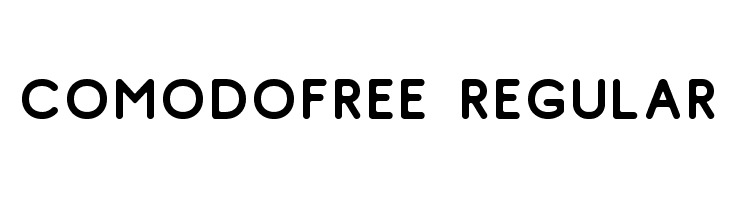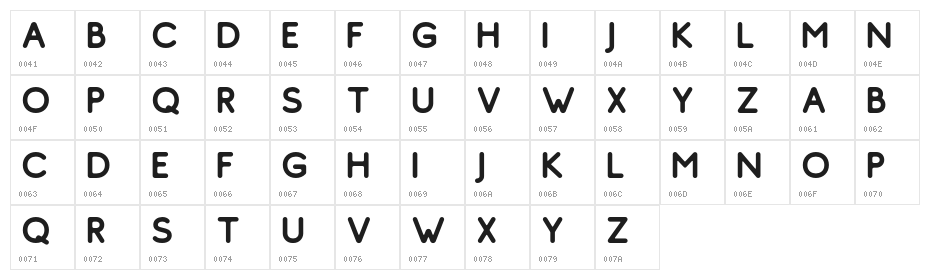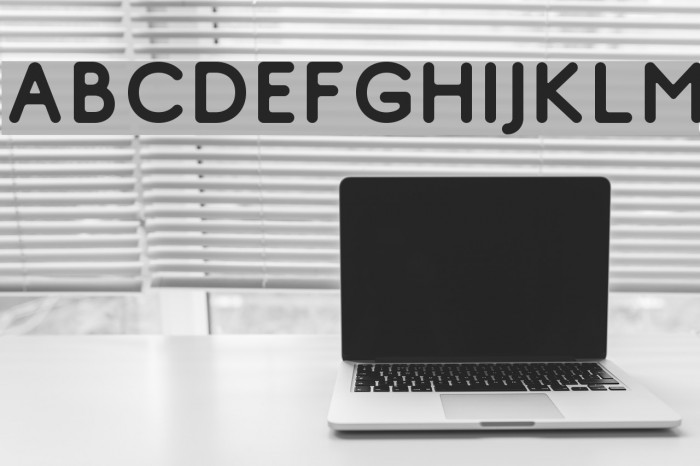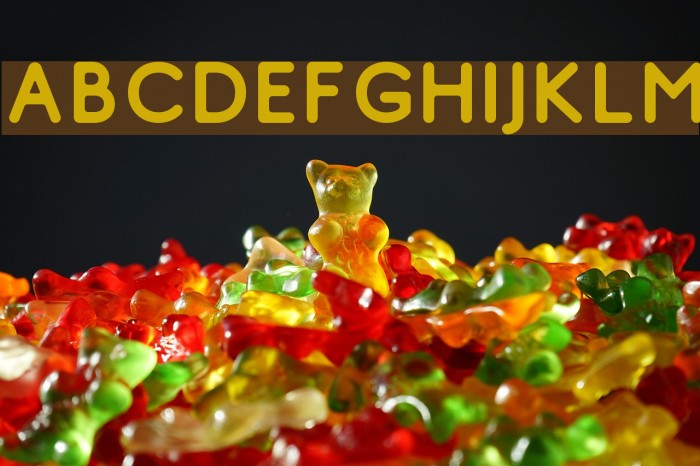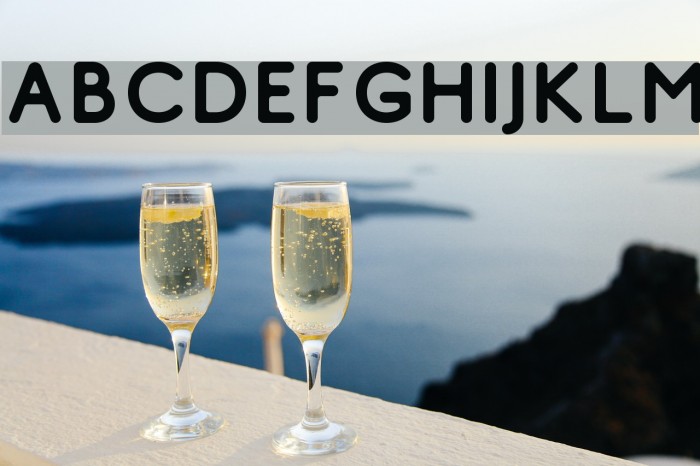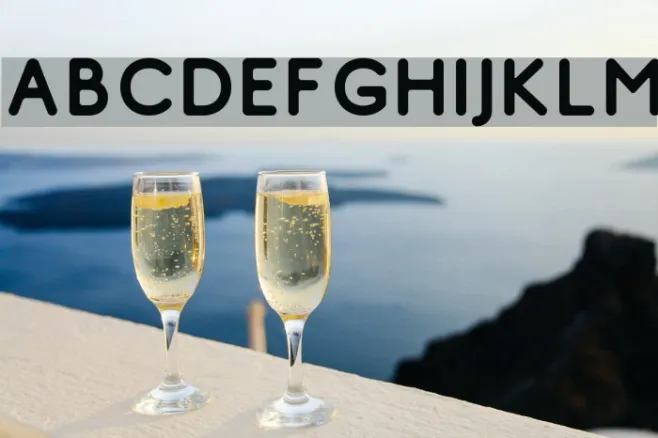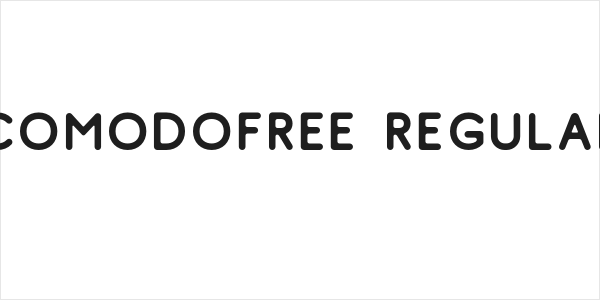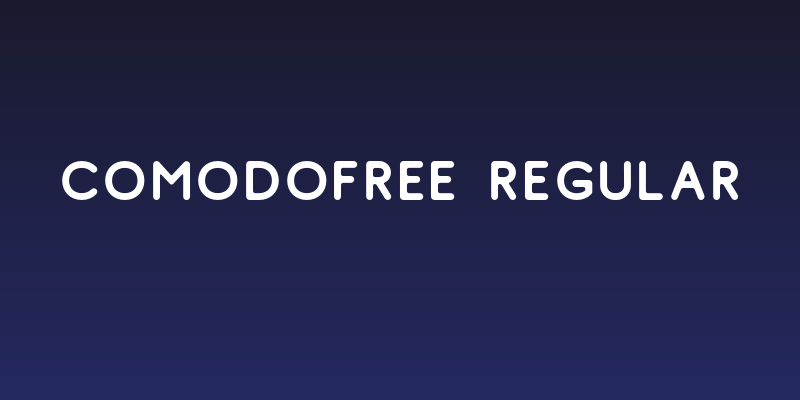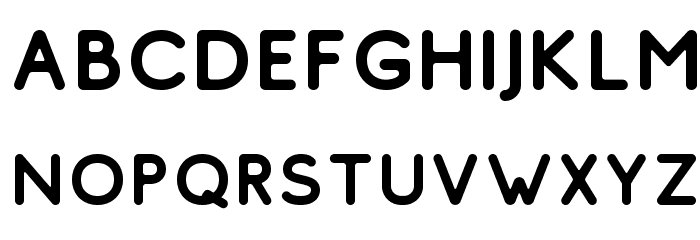
ComodoFree-Regular Font
ComodoFree-Regular Description
This font features a clean and modern sans-serif style with rounded edges, giving it a friendly and approachable appearance. The characters are evenly spaced, providing a balanced and harmonious look. The uniform stroke width across all characters contributes to a cohesive and professional feel, making it suitable for various design applications. Its simplicity and clarity ensure excellent readability, even at smaller sizes. The font's geometric shapes and smooth curves make it versatile for both digital and print media, offering a contemporary aesthetic that complements a wide range of design projects.